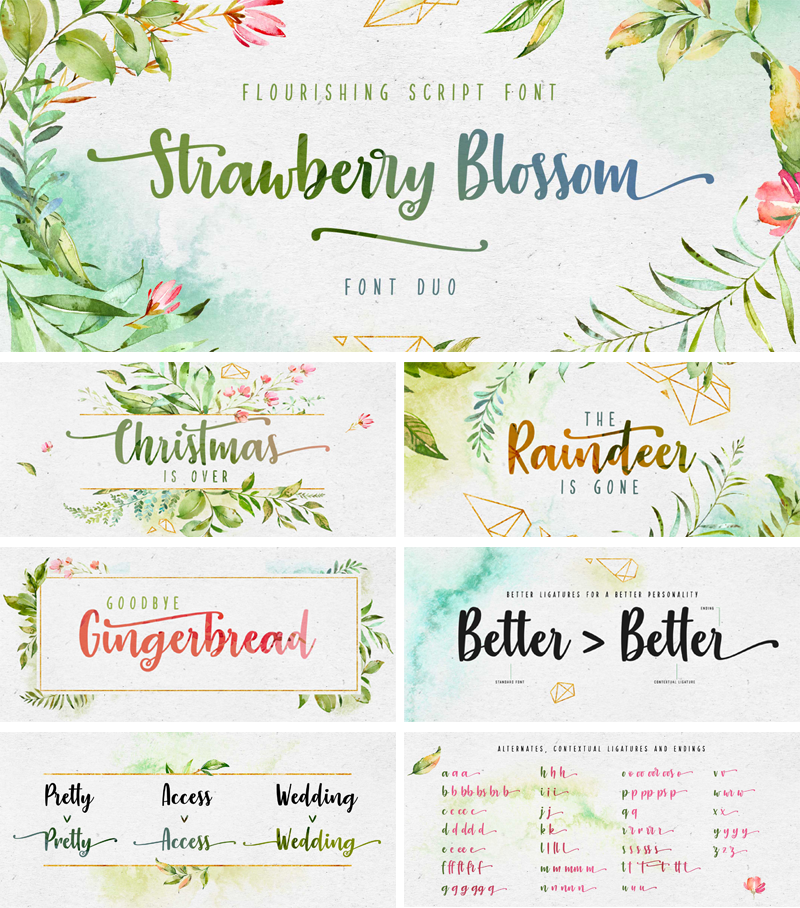
Strawberry Blossom Font
The full commercial version includes a huge set of alternate glyphs, contextual ligatures, and underlinings to create your own style, plus a complete font file called Strawberry Flowers!
Every lowercase is provided with at least one alternate!
| Classification: | Brush Fonts, Handwritten Fonts, Script Fonts |